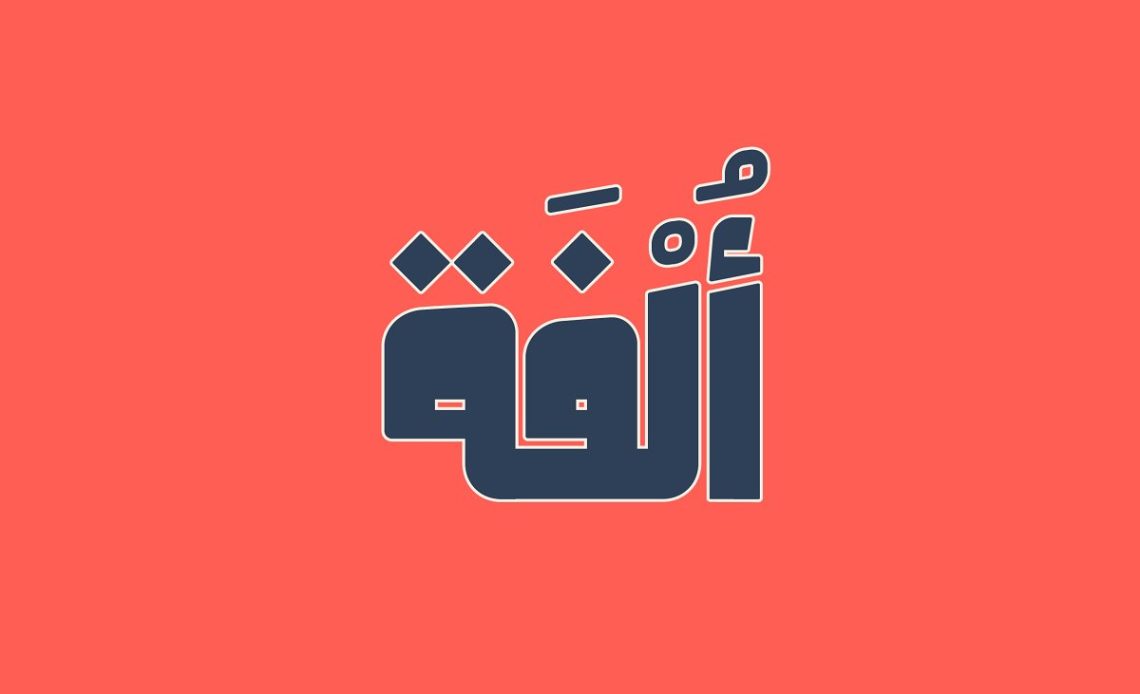
Looking for the perfect Arabic typeface to add a touch of creativity to your design project? Look no further than Olfah - the Best Font For Display! Created by the talented designer Mostafa Abasiry, Olfah is a stunning display font that brings a friendly and approachable style to your design.
With its casual yet sophisticated appearance, Olfah is perfect for a wide range of design applications. Whether you're looking to create eye-catching advertising, informative infographics, or beautiful web and print designs, Olfah is the font you've been searching for.
The font family features two weights - Bold and Regular - giving you the versatility to create unique designs that stand out from the crowd. And with its keyword-rich naming, Olfah is guaranteed to attract the attention of search engines and potential buyers alike.
But Olfah isn't just a font - it's a tool that empowers you to elevate your design work to new heights. With its captivating curves and emotive style, Olfah evokes a sense of playfulness and creativity that's sure to resonate with your audience.